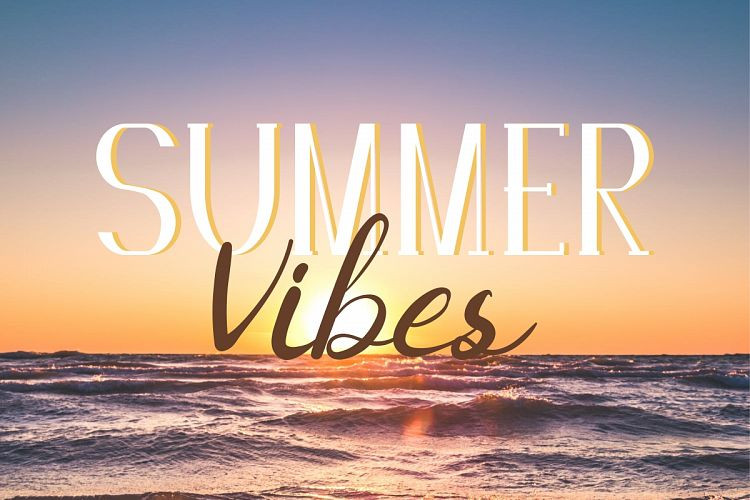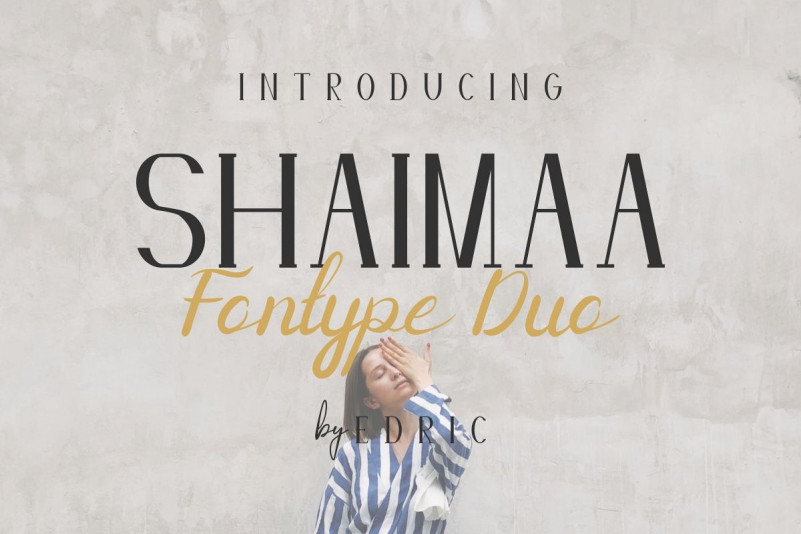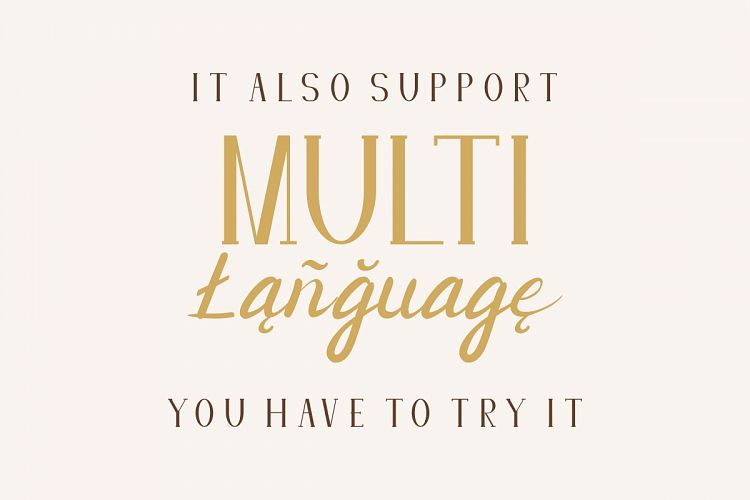
Shaimaa Font
Hi Everyone! Introducing our newest font : Shaimaa ! This is a font duo : Regular serif and handwritten script.Great for branding, logo, stationery, business card, signage, flyer, brochure etc. There are many industries that is suitable for this font : construction, real estate, services, law firm, wedding, makeup artist, photographer, clothing etcThis font will Work on PC & Mac with Simple installations. Accessible in the Adobe Illustrator, Adobe Photoshop, Adobe InDesign, even work on Microsoft Word.Purchase with confidence! =)